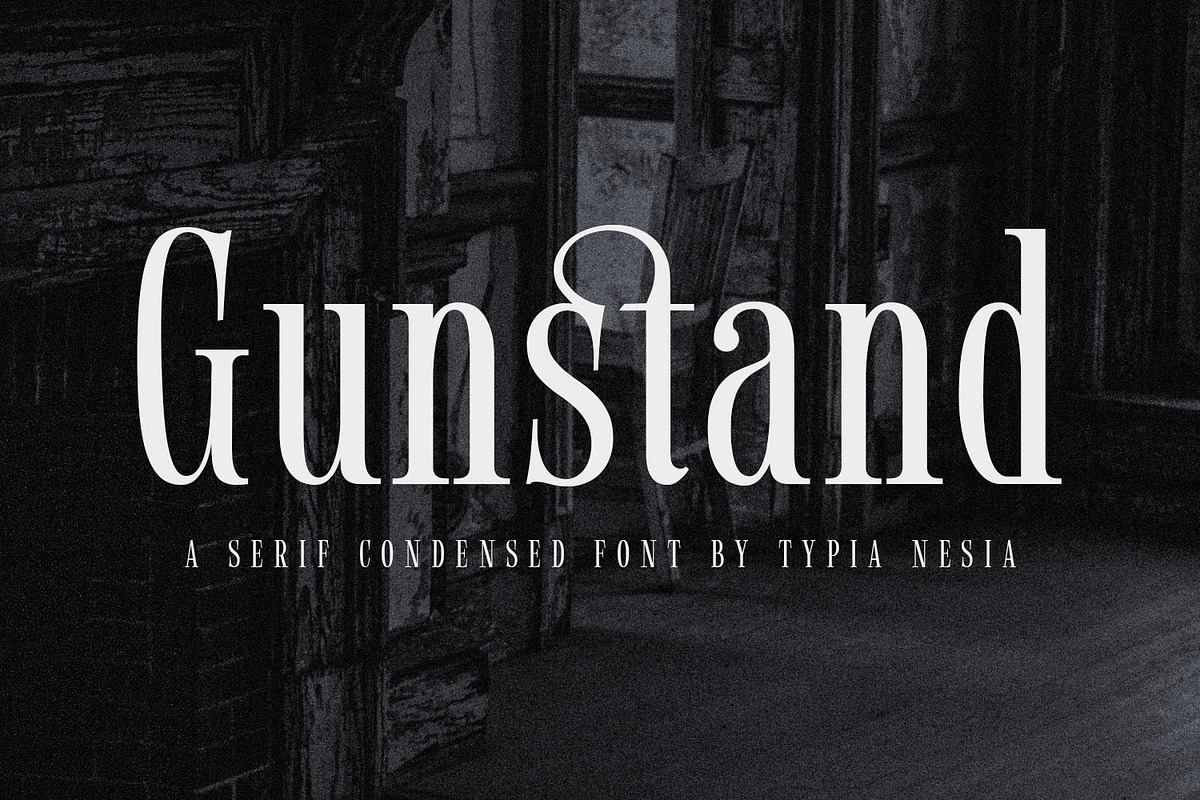
Please note, you must purchase this font for commercial use. However, you can easily download Gunstand - Condensed Serif Font Free Download for personal use and testing purposes. Gunstand - Condensed Serif Font is a bold, modern typeface with sleek, condensed letterforms and sharp serifs. Perfect for headlines, posters, branding, and editorial designs, this font makes a statement with its high-impact appearance. Whether you're designing for a contemporary brand, creating eye-catching posters, or working on a strong visual identity, Gunstand - Condensed Serif Font Free Download will bring sophistication and clarity to your designs. Download Gunstand - Condensed Serif Font Free Download today and explore its potential before opting for a commercial license.